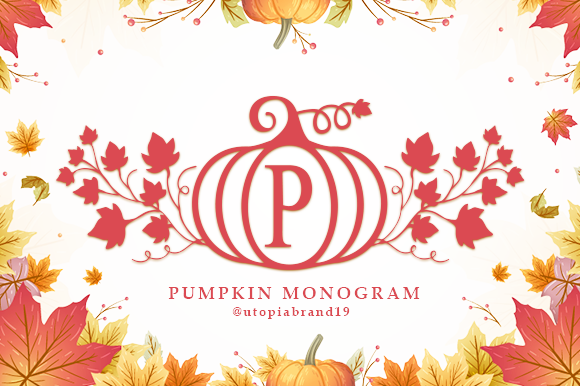
Embrace the playful and charming aura of Pumpkin Monogram, a decorative font that exudes a whimsical vibe. Dive into a world of creativity as you craft captivating invitations that burst with personality. Let your imagination run wild as you design beautiful stationary art that tells a story. Captivate your audience with eye-catching social media posts that ignite engagement. Spread joy and warmth through cute greeting cards that leave a lasting impression. Pumpkin Monogram is the perfect font to add a touch of delight to your creative projects, transforming them into expressions of pure enchantment.
Unleash your inner artist and let Pumpkin Monogram be your creative companion. Its delightful curves and playful strokes will add a touch of whimsy to your designs, making them stand out from the ordinary. Express your unique style with invitations that reflect your personality, creating a lasting memory for your special occasions. Elevate your stationary art to new heights, crafting pieces that showcase your artistic flair and attention to detail. Engage your followers with social media posts that pop with charm, leaving a lasting impression that keeps them coming back for more. Share the joy with heartwarming greeting cards, bringing smiles to the faces of your loved ones.
Pumpkin Monogram is more than just a font; it's an invitation to let your creativity flourish. Join the ranks of satisfied users who have discovered the magic of Pumpkin Monogram, transforming their projects into masterpieces. Embrace the endless possibilities and let your imagination soar. With Pumpkin Monogram as your creative ally, the world of design becomes your playground, where every project is an opportunity to spread joy and enchantment.